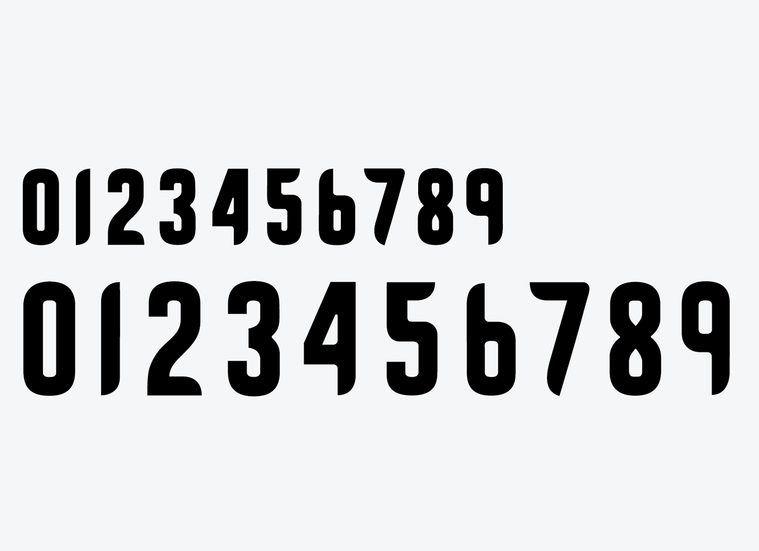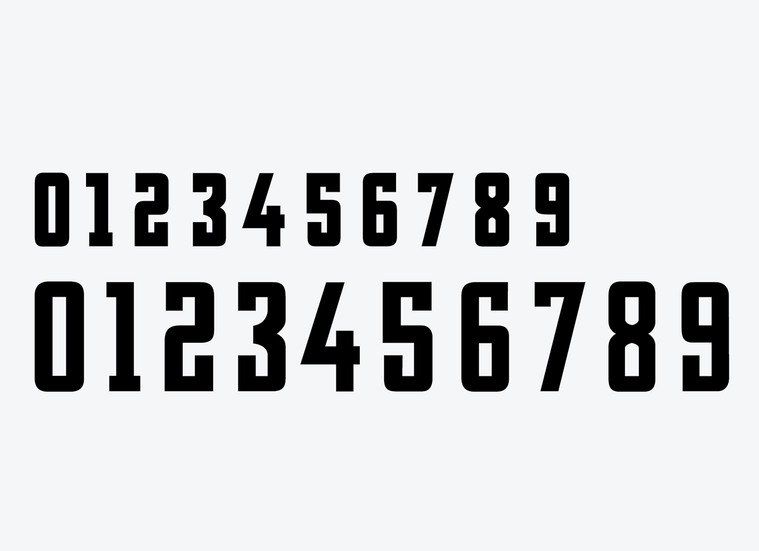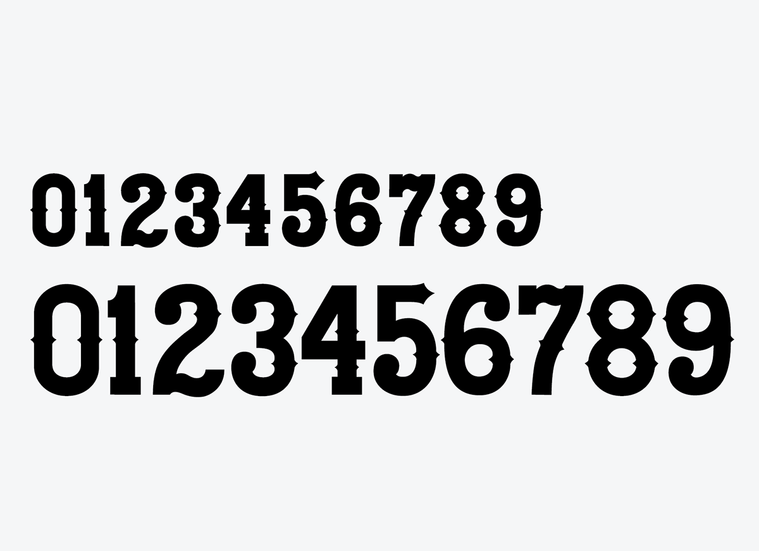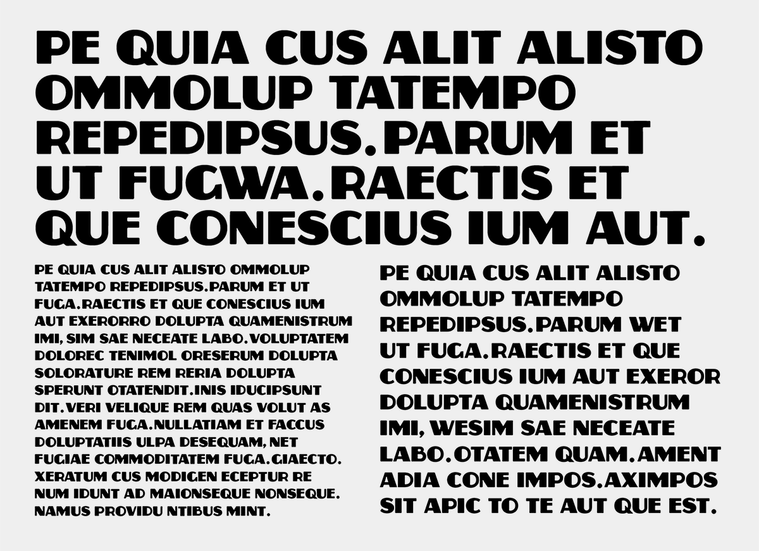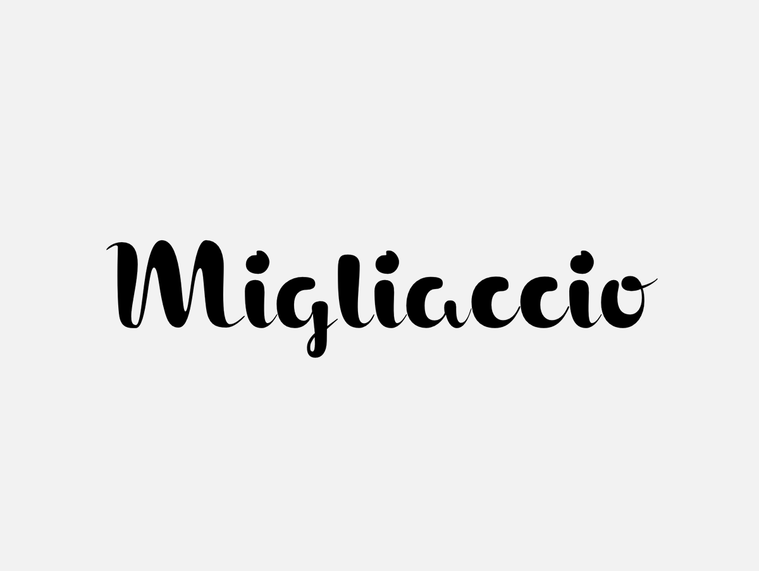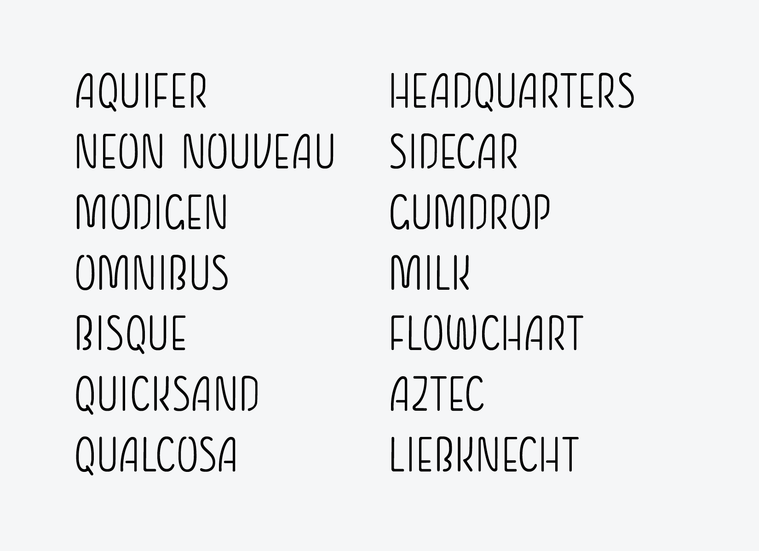
Zaborsky
This typeface grew naturally out of the need to have consistent branding for the Neon Speaks festival. The festival logo is comprised of heavy deco-style capitals and I began grabbing those letters and drawing new letters to match, until it became apparent that it would be useful to have an actual font. See the whole festival branding here. Zaborsky has its own page here.
Qualcosa
Also created for the Neon Speaks festival but who knows the future of this capitals-only, casual, neon-style typeface. I literally started drawing it to give my eyes a break from Zaborsky, but then it took on a life of it's own.
Migliaccio
A heavy brush script typeface drawn from the lettering of my own logo, and inspired by the amazing lettering artists of the mid-century.
Tucson
A numerals-only typeface redesign for Nike sports jerseys. See more here.
Kansas
A numerals-only typeface redesign for Nike sports jerseys. See more here.
FB Rush
A numerals-only typeface redesign for Nike sports jerseys. See more here.